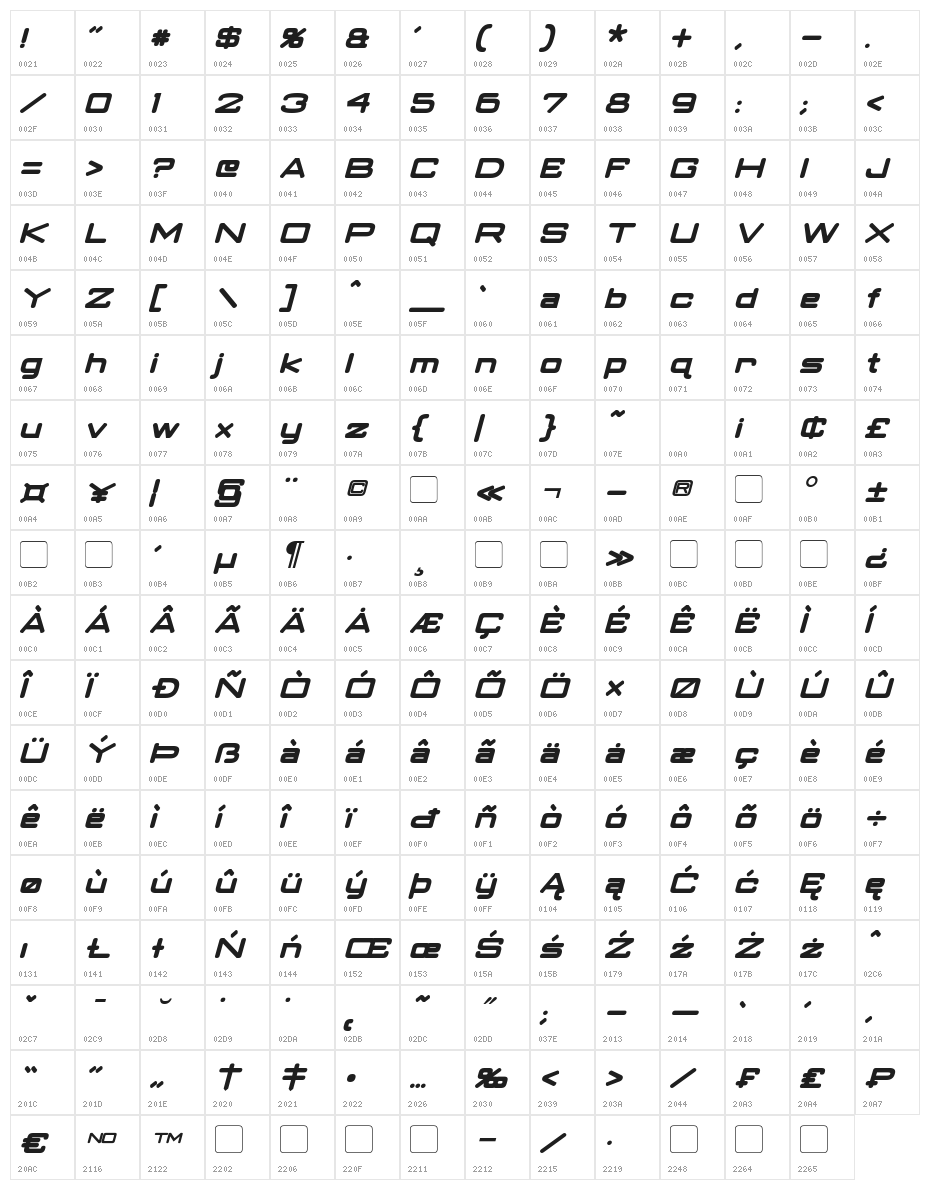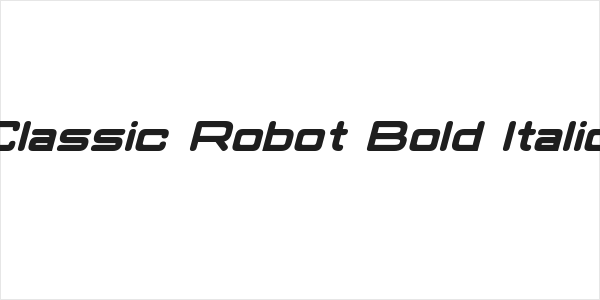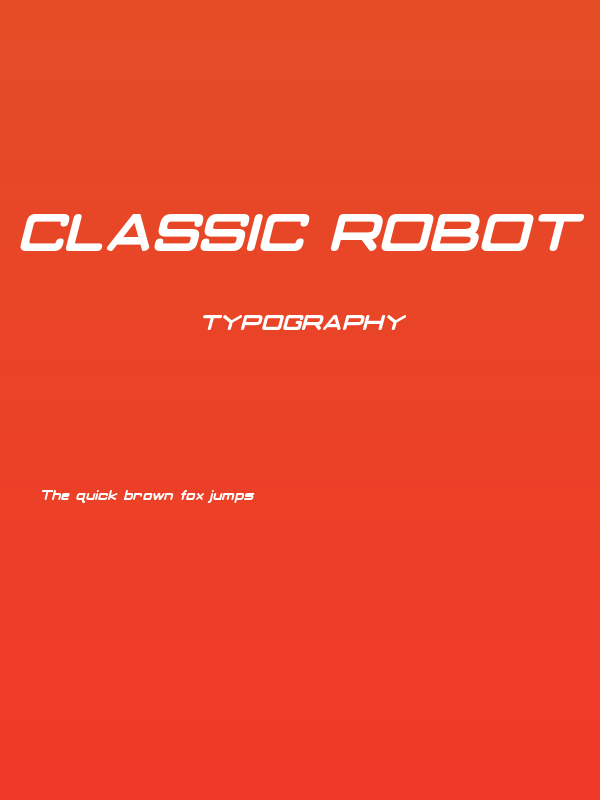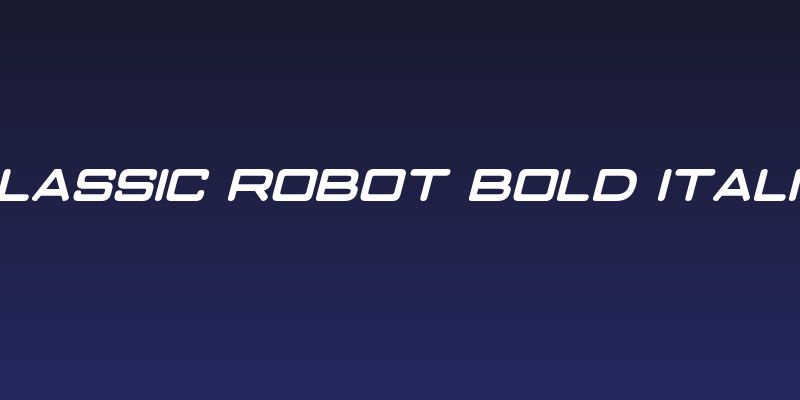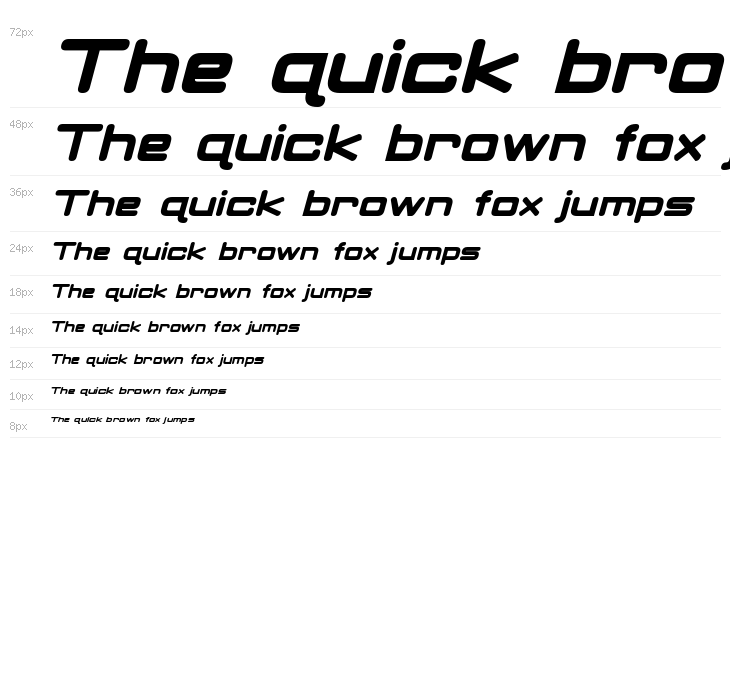
Classic Robot Bold Italic Font
Classic Robot Bold Italic Description
This font features a futuristic and sleek design, characterized by its bold and italicized style. The letters are slightly slanted, giving a sense of motion and modernity. The strokes are consistent in thickness, providing a uniform appearance across all characters. The rounded edges and smooth curves contribute to its robotic and technological aesthetic. The numbers and special characters maintain the same stylistic elements, ensuring cohesion throughout. This font is ideal for projects that require a modern and dynamic look, such as technology branding, sci-fi themes, or digital interfaces.
| Use Case | Headlines, Logos, Digital Interfaces |
| Proposed Projects | Ideal for technology branding, sci-fi themes, digital interfaces, and modern advertising. |